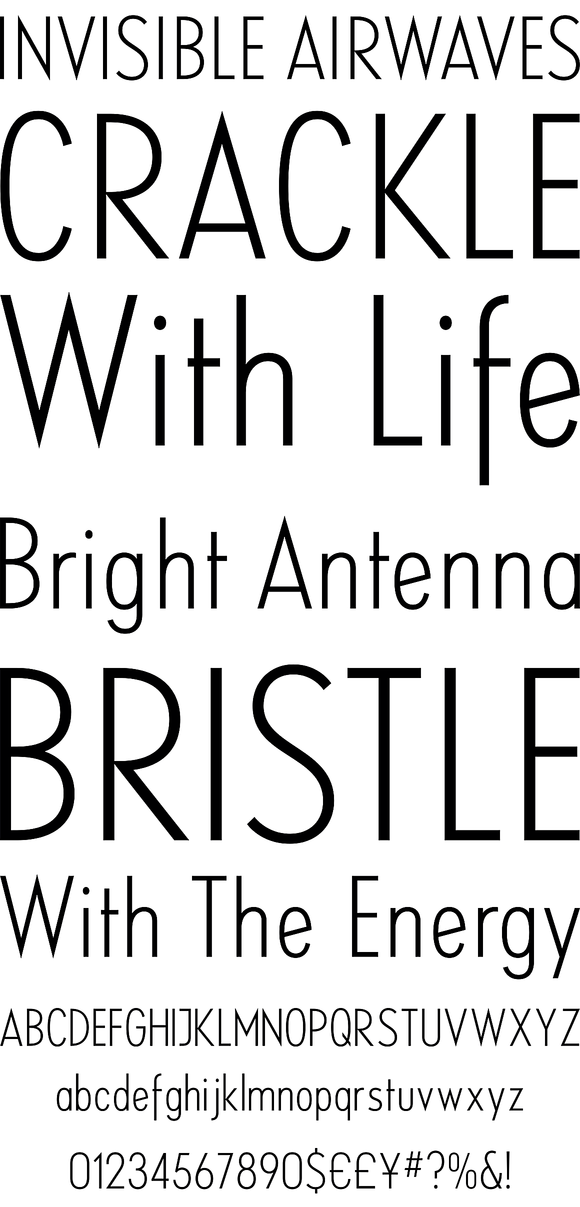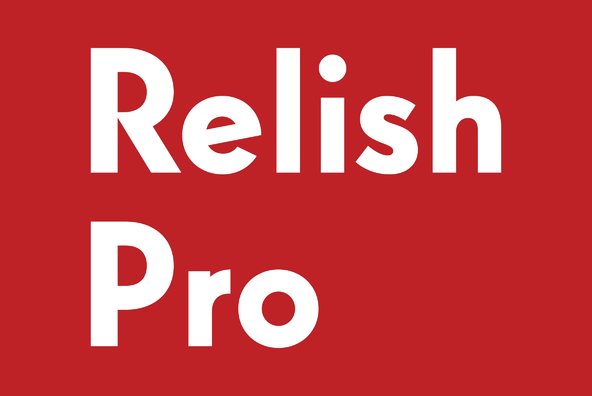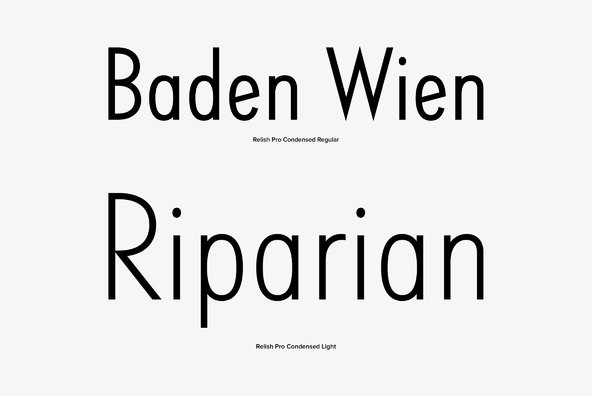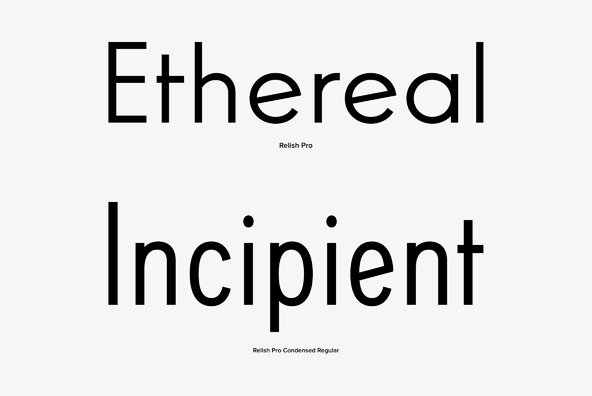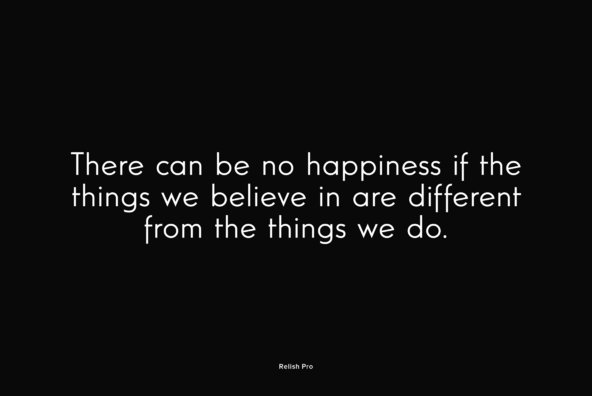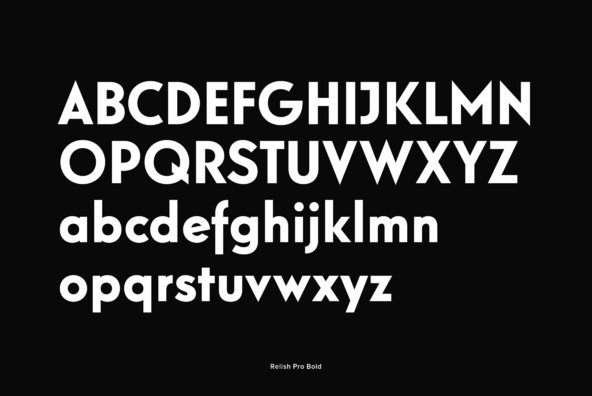
Relish Pro
Designed by Steve Jackaman and Ashley Muir. Relish is a more traditional sans serif version of our Guildford typeface, with round punctuation. Relish contains all the high-end features expected in a quality OpenType Pro font.